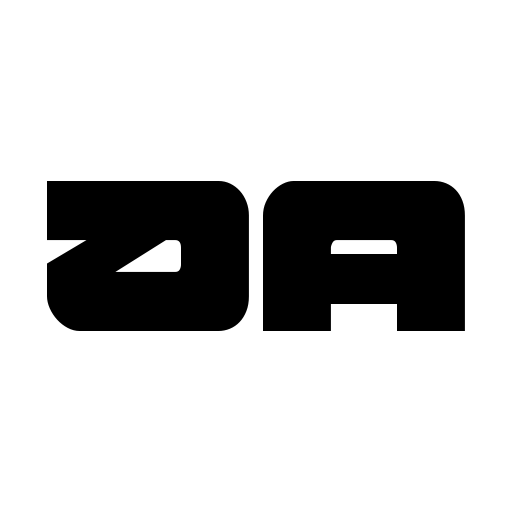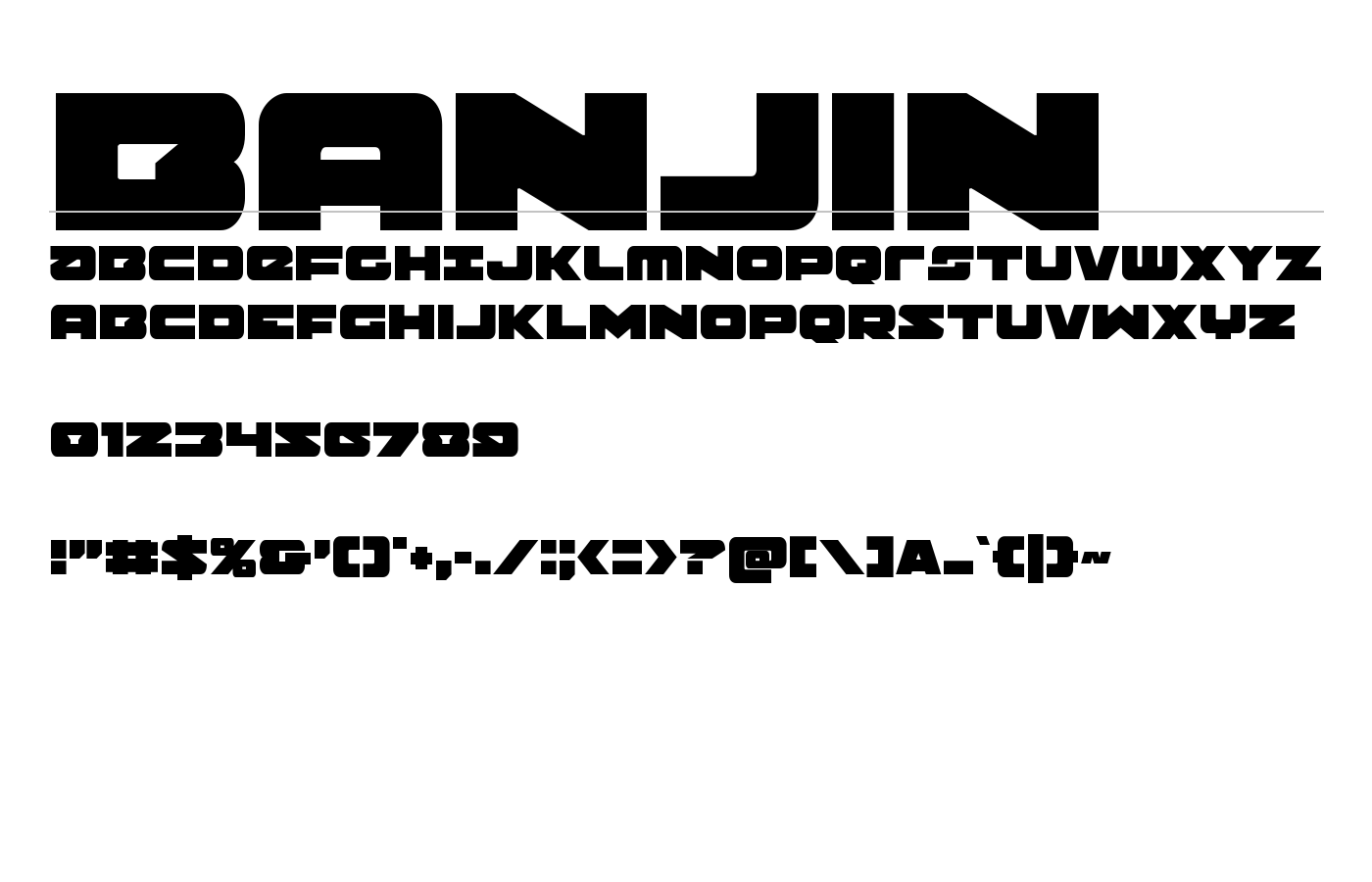
Banjin is a bold, futuristic sans serif font characterized by its heavy weight, wide letterforms, and strong geometric shapes with sharp angles and unusual cutouts. It delivers a powerful, modern vibe ideal for headlines, logos, and branding that demand attention and convey a tech-savvy, cutting-edge personality. This font works best in display uses where its striking style can stand out without losing legibility.
Banjin Font
About Banjin Font